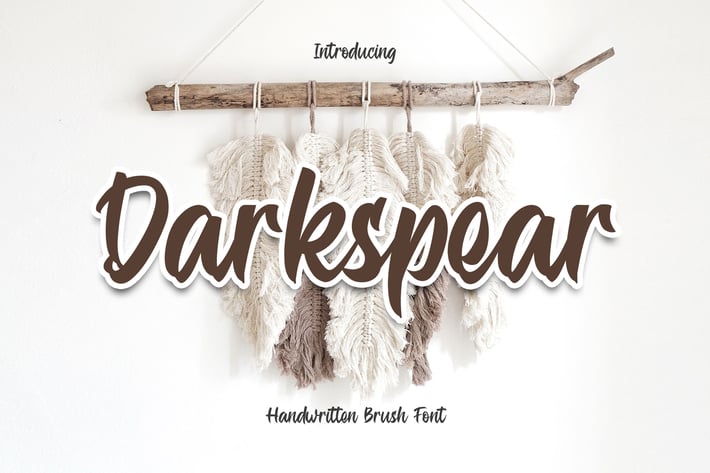
Darkspear - Script Font
Darkspear is handwritten script font. It has vintage, elegant, old school, classy, and cool. Itβs a great font for fashion, apparel projects, signature, album cover, logo, branding, magazine, social media, & advertisements, but also works great for other projects.
- Basic Latin A-Z and a-z
- Numbers
- Symbols